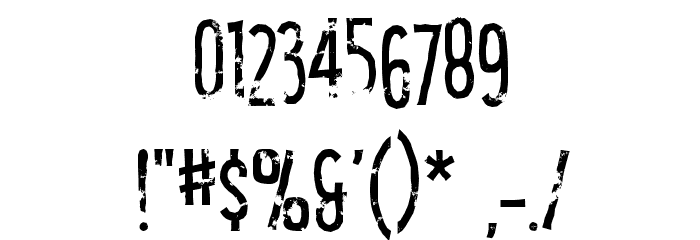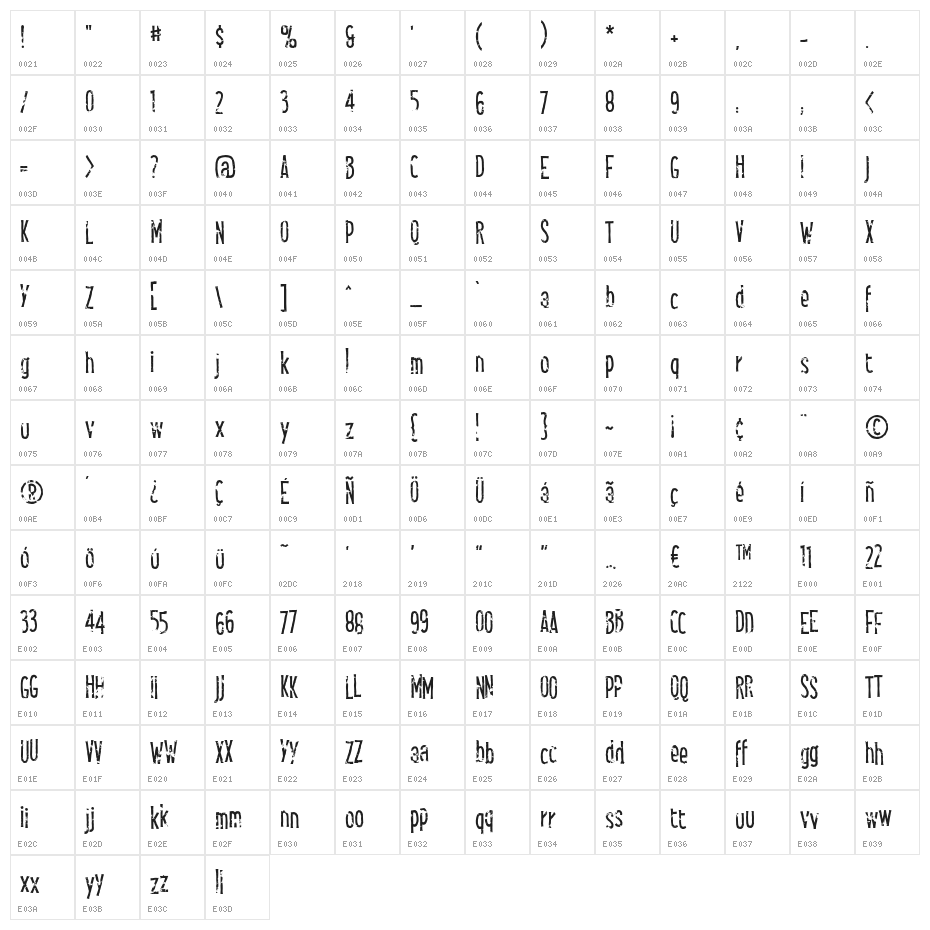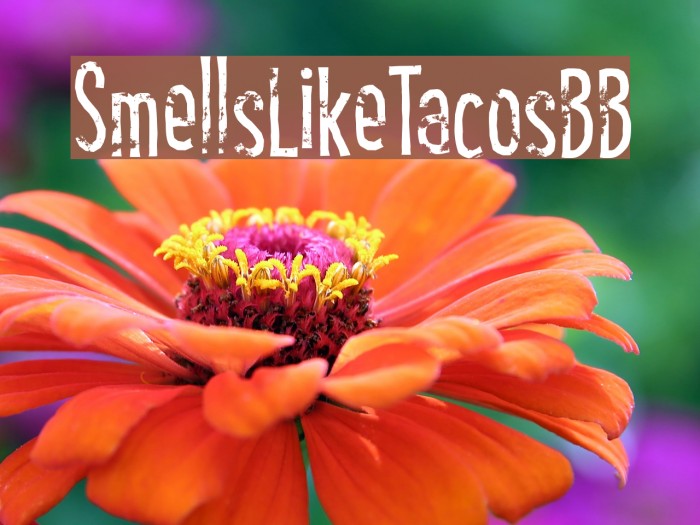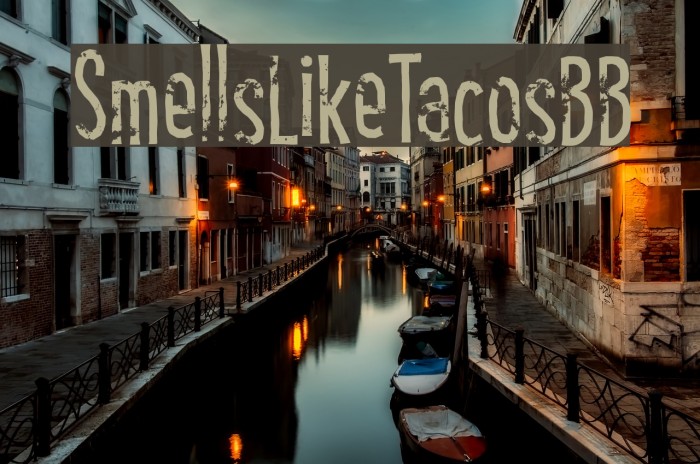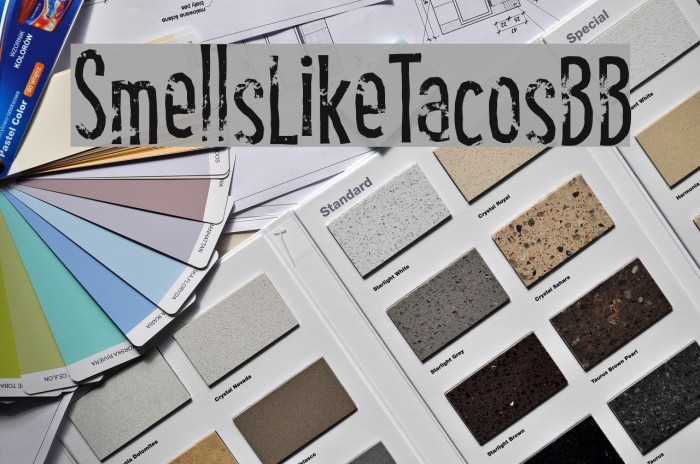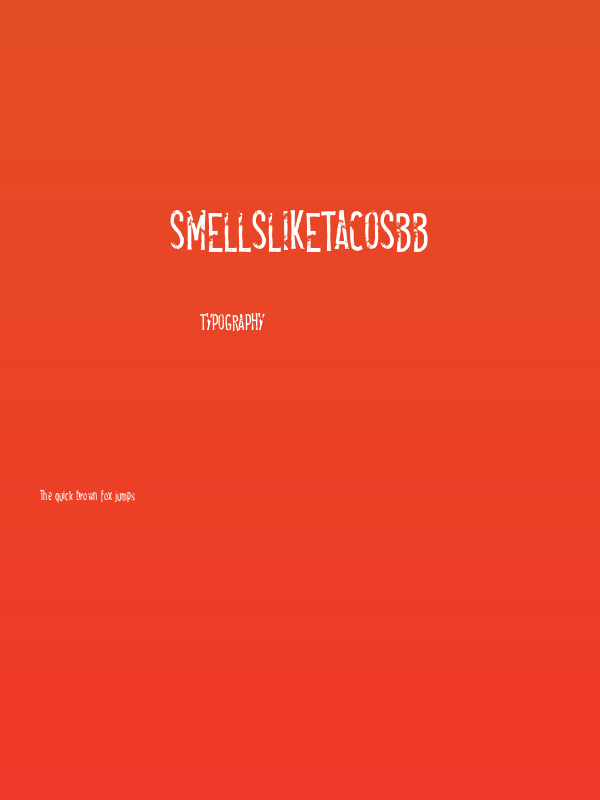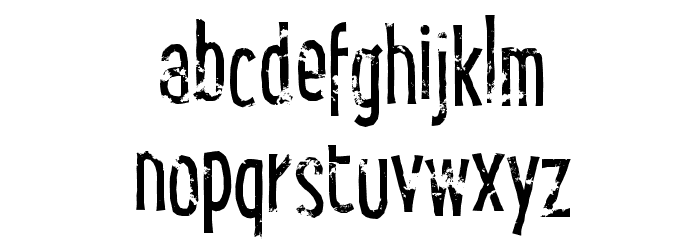
SmellsLikeTacosBB Font
SmellsLikeTacosBB Description
This font exhibits a distressed, grunge aesthetic with a worn and weathered appearance. The characters are bold and slightly irregular, giving them a hand-crafted feel. The texture within each letter suggests a rough, textured surface, reminiscent of old, faded signage or graffiti. The uppercase and lowercase letters maintain a consistent style, with the uppercase being slightly taller and more pronounced. Numbers and special characters follow the same distressed pattern, ensuring uniformity across the font. This style is particularly eye-catching and can add a rugged, edgy vibe to any design.
| Overall Style | Grunge, Urban, Edgy |
| Proposed Projects | Ideal for album covers, posters, urban-themed designs, or any project needing a gritty, edgy look. |